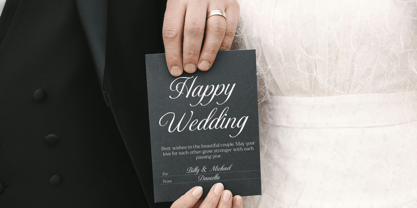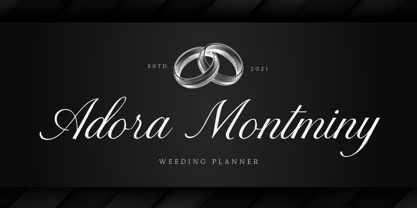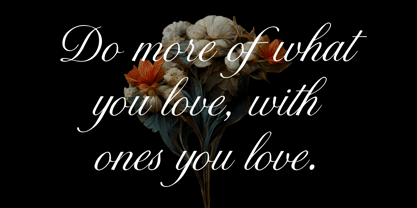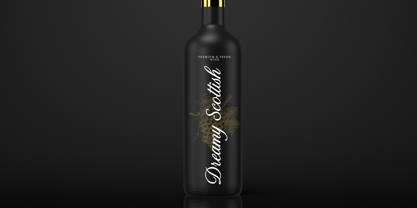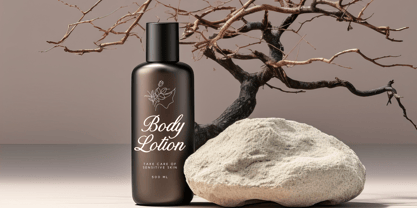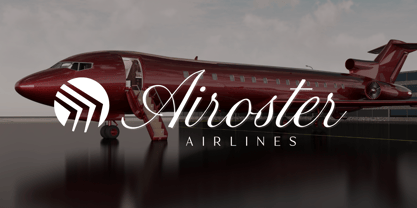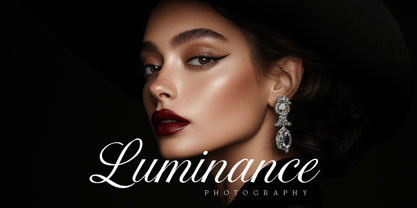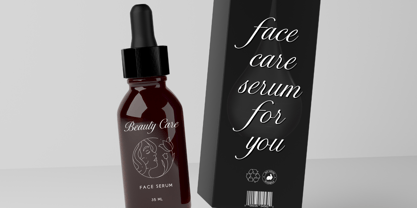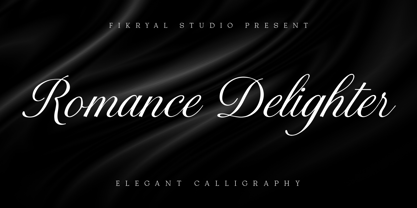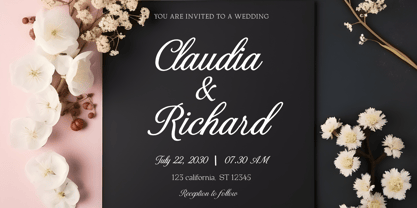
Romance Delighter
Die Schriftfamilie Romance Delighter wurde von Muhammad Fikry entworfen und von Fikryal veröffentlicht. Romance Delighter enthält 2 Stile und Familienpaketoptionen.
Romance Delighter is an elegant calligraphy script font that brings timeless beauty and sophistication to your design projects. Featuring two luxurious weights — Regular and Bold — this font is thoughtfully designed with graceful curves, natural flow, and refined detail.
Complete with lovely ligatures and beautiful alternates, Romance Delighter adds a romantic and premium touch to every word you type. Perfectly suited for high-end branding, cosmetic packaging, luxury wedding invitations, logos, and editorial designs, this typeface was made to shine in projects that demand elegance and exclusivity.
Whether you're designing for a modern bridal brand or launching a premium beauty product, Romance Delighter will elevate your typography with charm and grace.